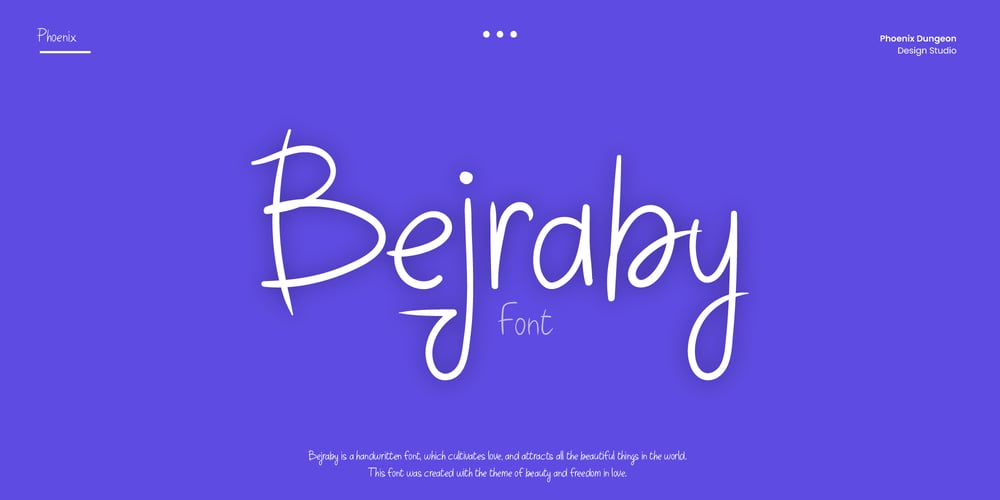
Bejraby Font Family was designed by Alif Naufal Muzakki and published by Phoenix Group. Bejraby contains 1 styles and family package options. Bejraby is a handwritten font, which cultivates love, and attracts all the beautiful things in the world. This font was created with the theme of beauty and freedom in love.